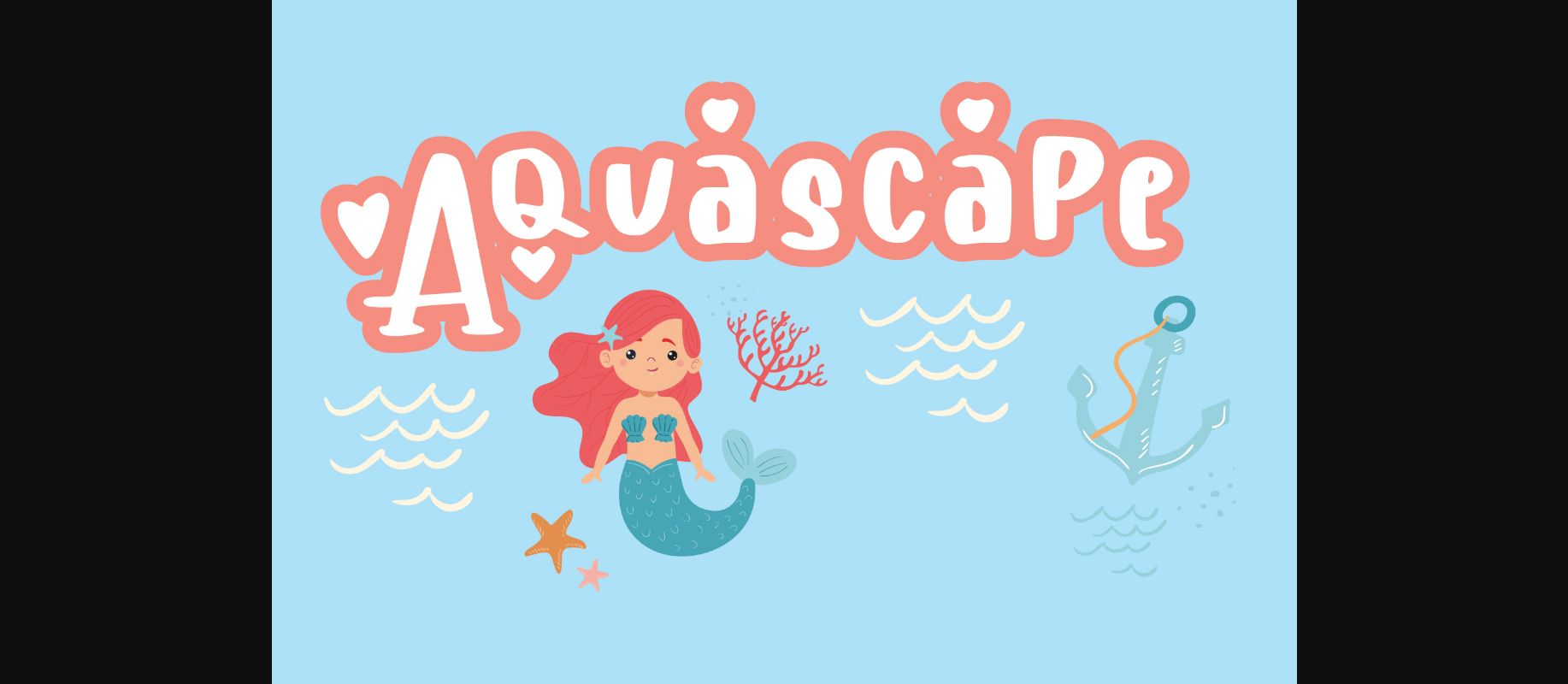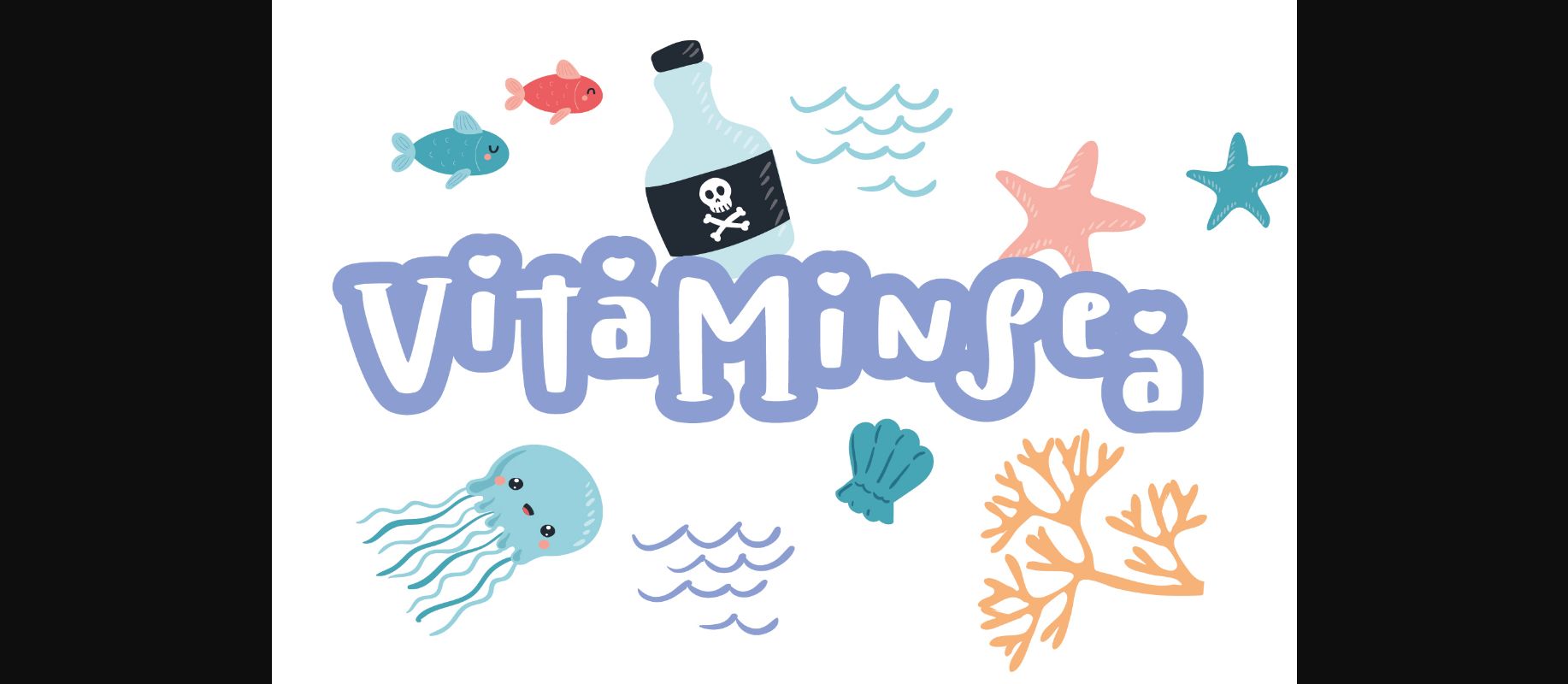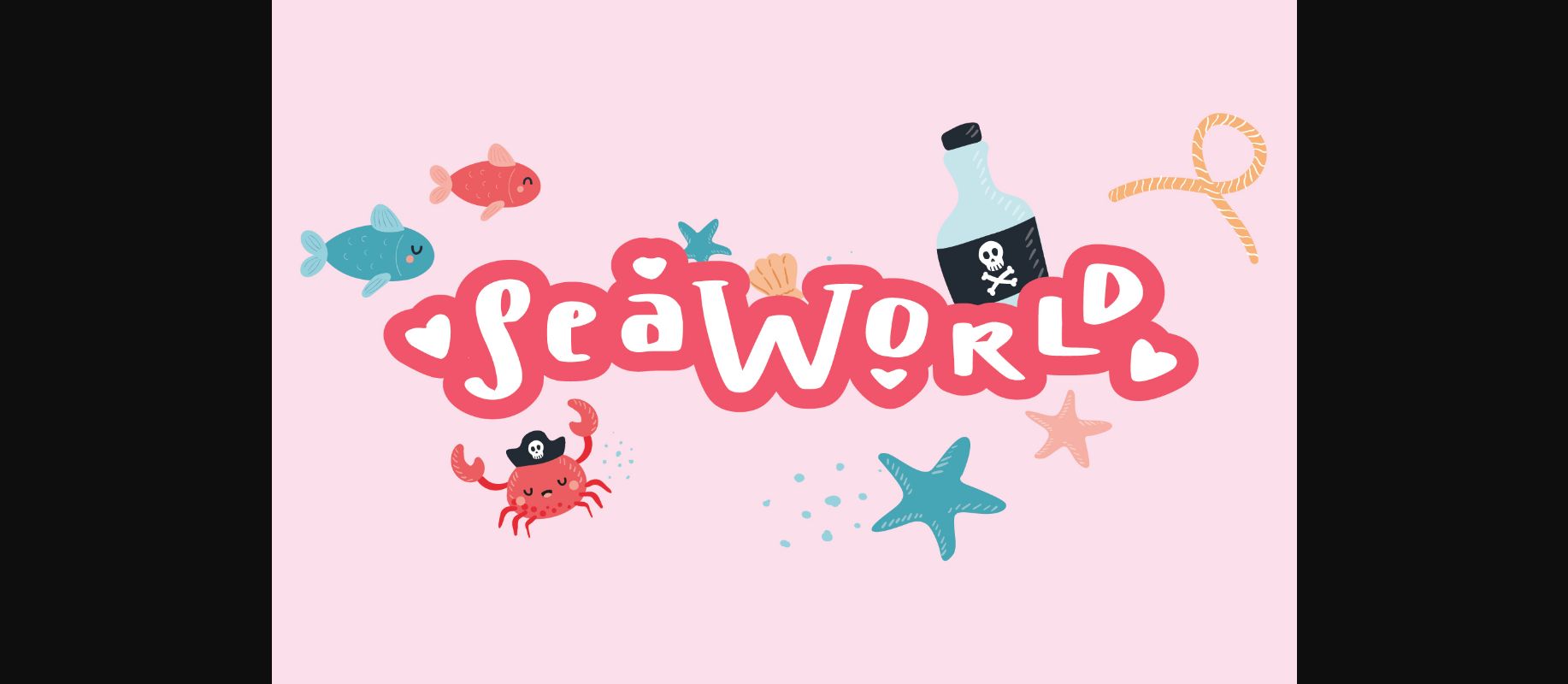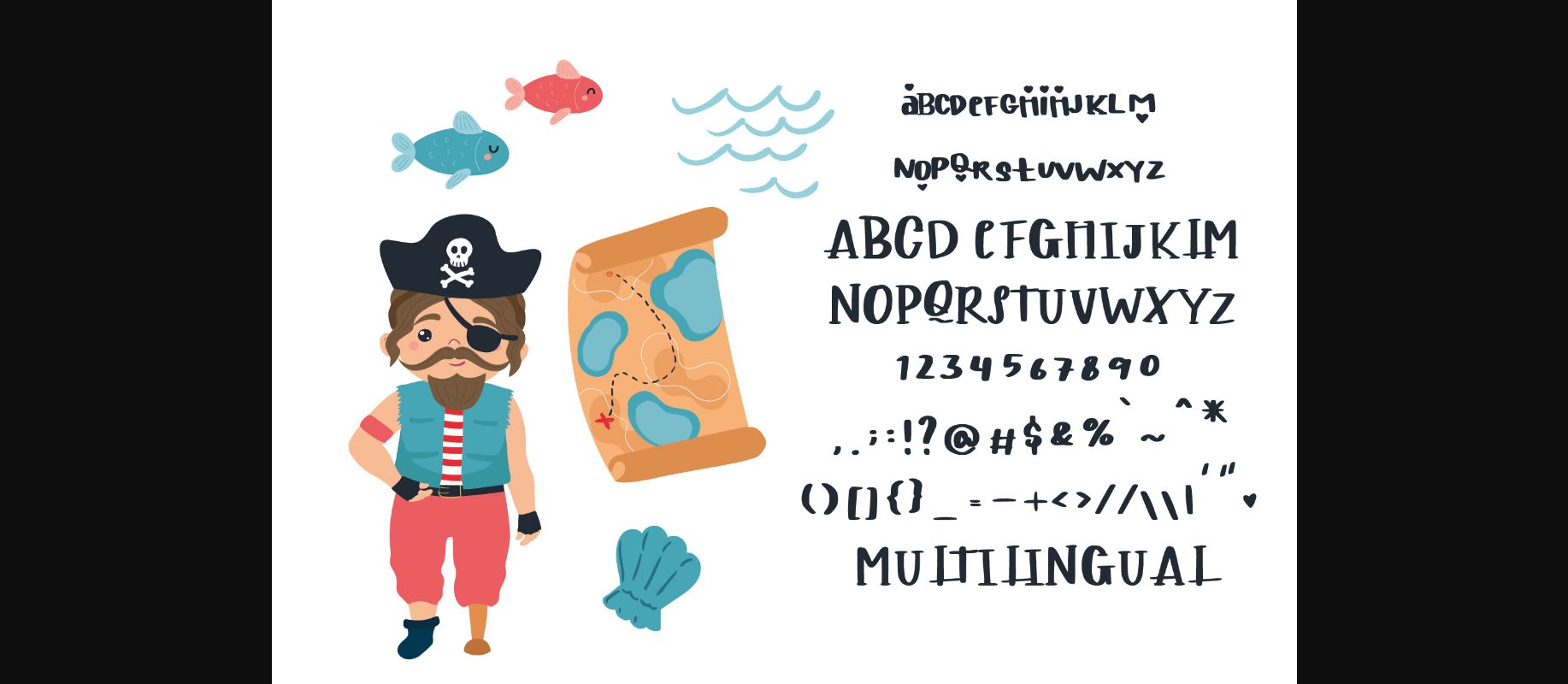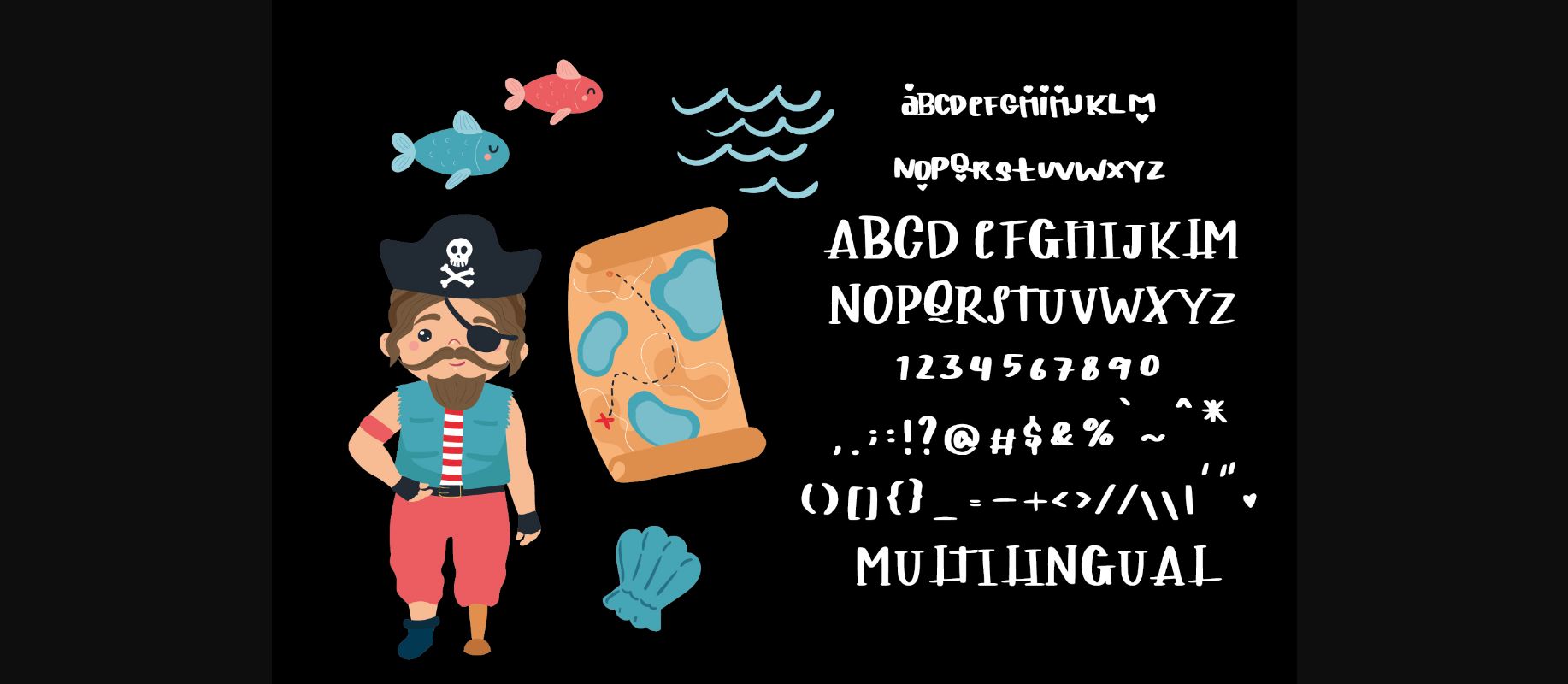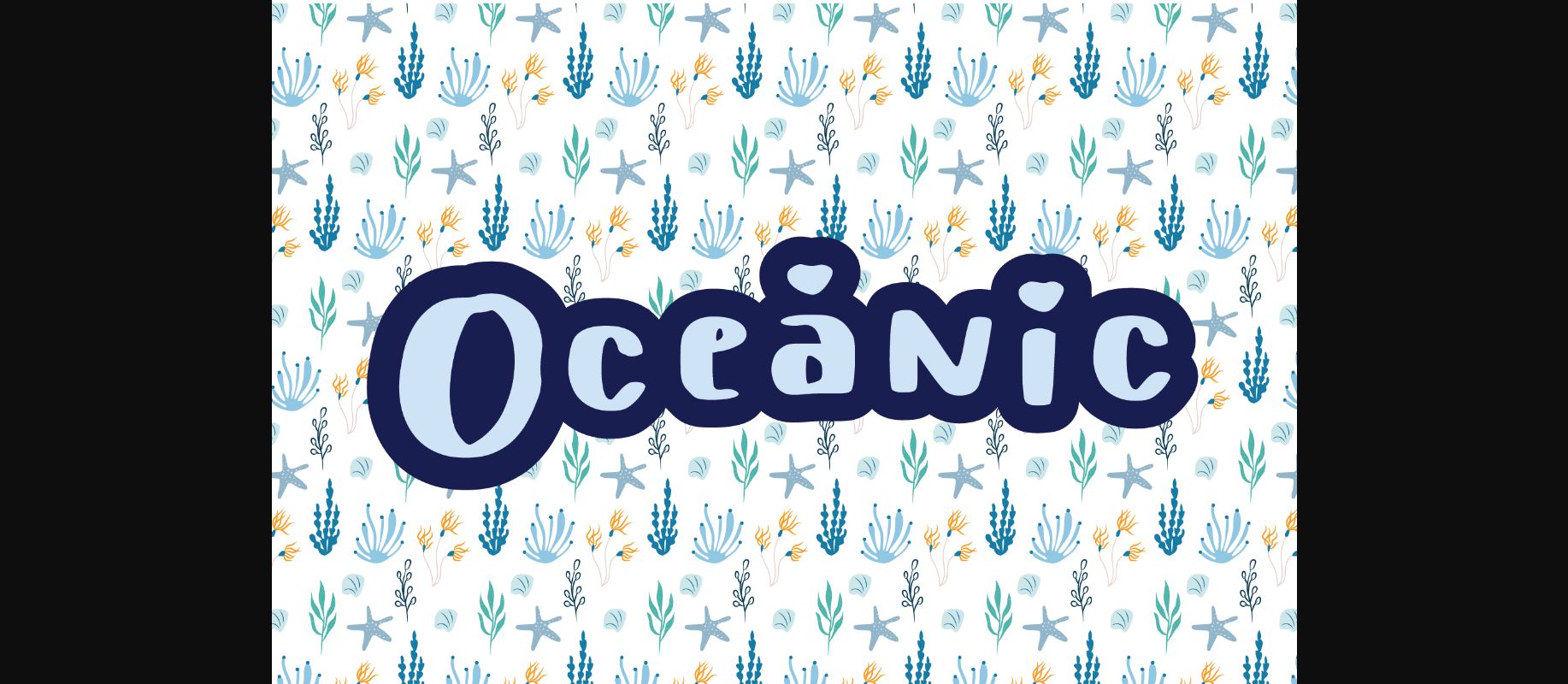
About Aquascape Font
Aquascape is a cute and fun decorative font. It embodies playfulness and authenticity and is the perfect choice for any children activity or school project.
It will add an incredibly joyful touch to your designs.